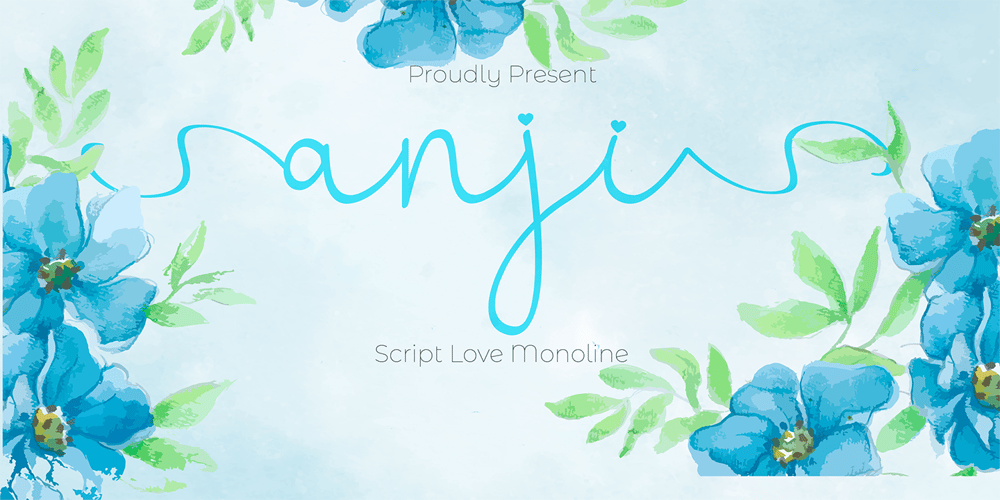
Anji
Anji font
Anji Font Family was designed by Mohamad Candirah and published by MC Creative. Anji contains 1 styles and family package options. Anji is a font with a modern Calligrapy look and energetic. With extra attention to quick strokes and sharp details, is ready and perfectly fit for your logo designs, music projects & social media posts, event poster, brand imagery, product packaging, handwritten quotes, merchandise, etc. What’s Included : Standard glyphs Ligature Works on PC & Mac Simple installations Accessible in the Adobe Illustrator, Adobe Photoshop, Adobe InDesign, even work on Microsoft Word. PUA Encoded Characters – Fully accessible without additional design software. Fonts include multilingual support for; ä ö ü Ä Ö Ü ß ¿ ¡